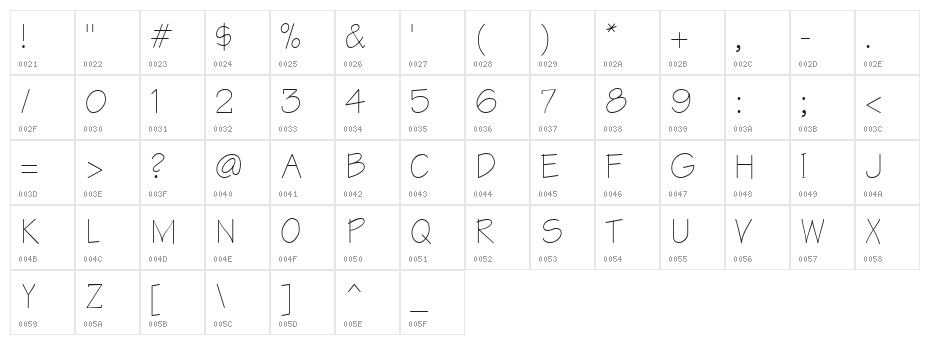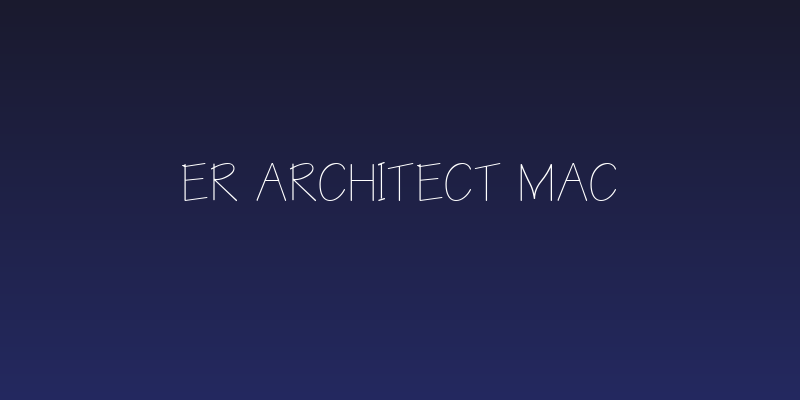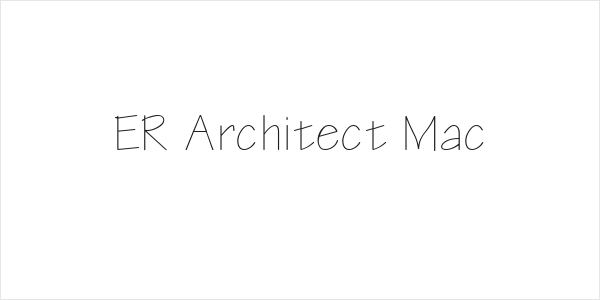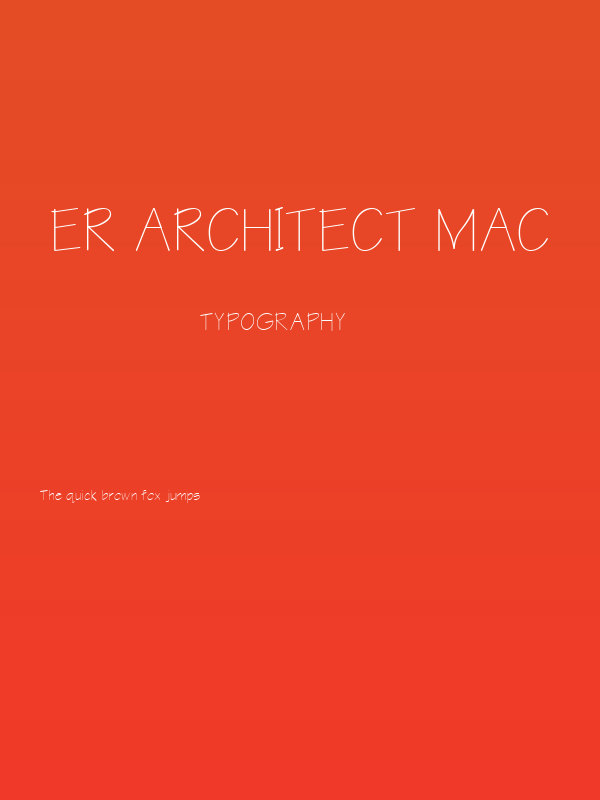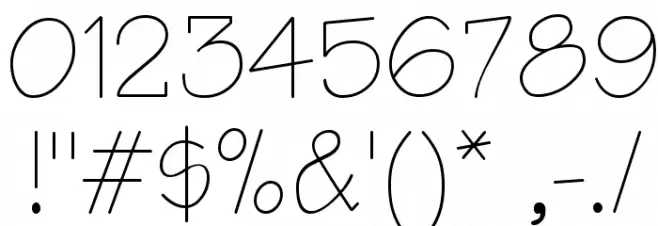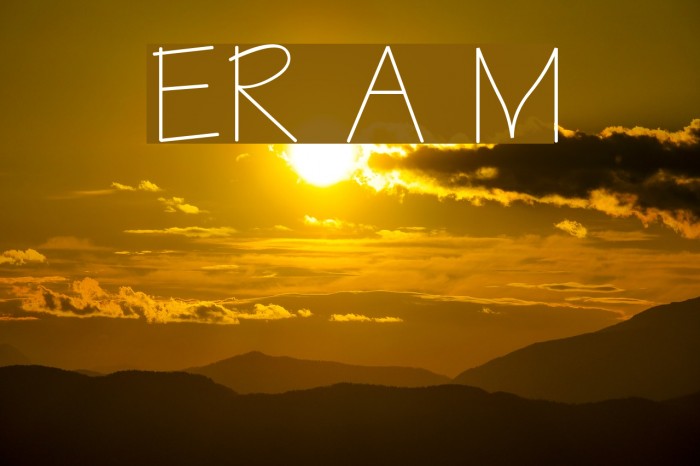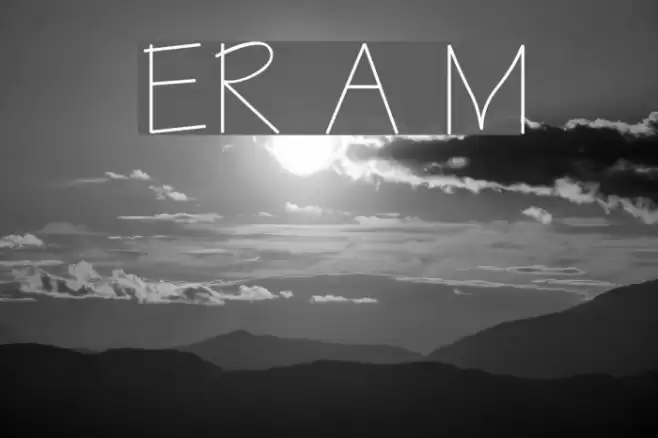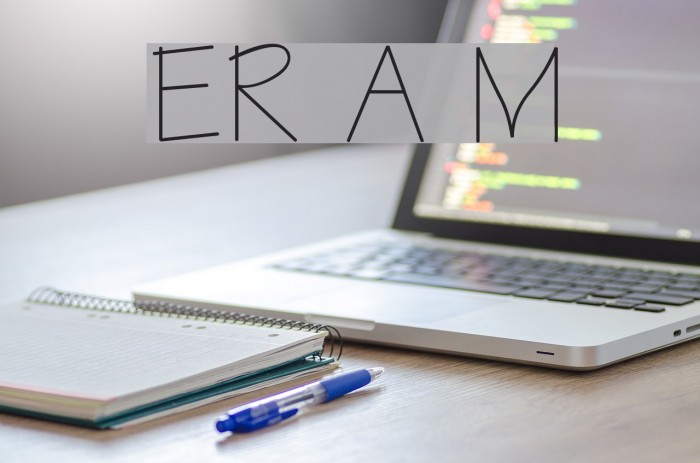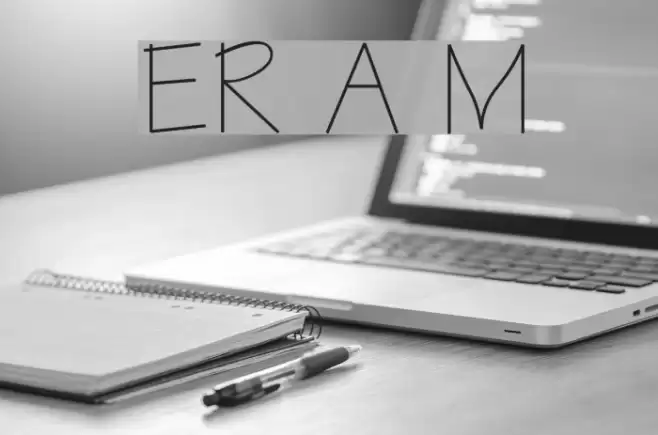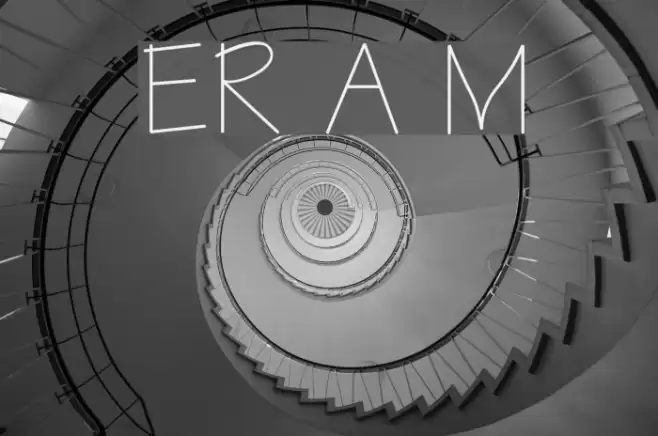
ER Architect Mac Font
| 用途 | Logos, Headlines, Personal stationery |
| おすすめプロジェクト | Ideal for architectural designs, modern branding, personal stationery, and creative projects requiring a handwritten touch. |